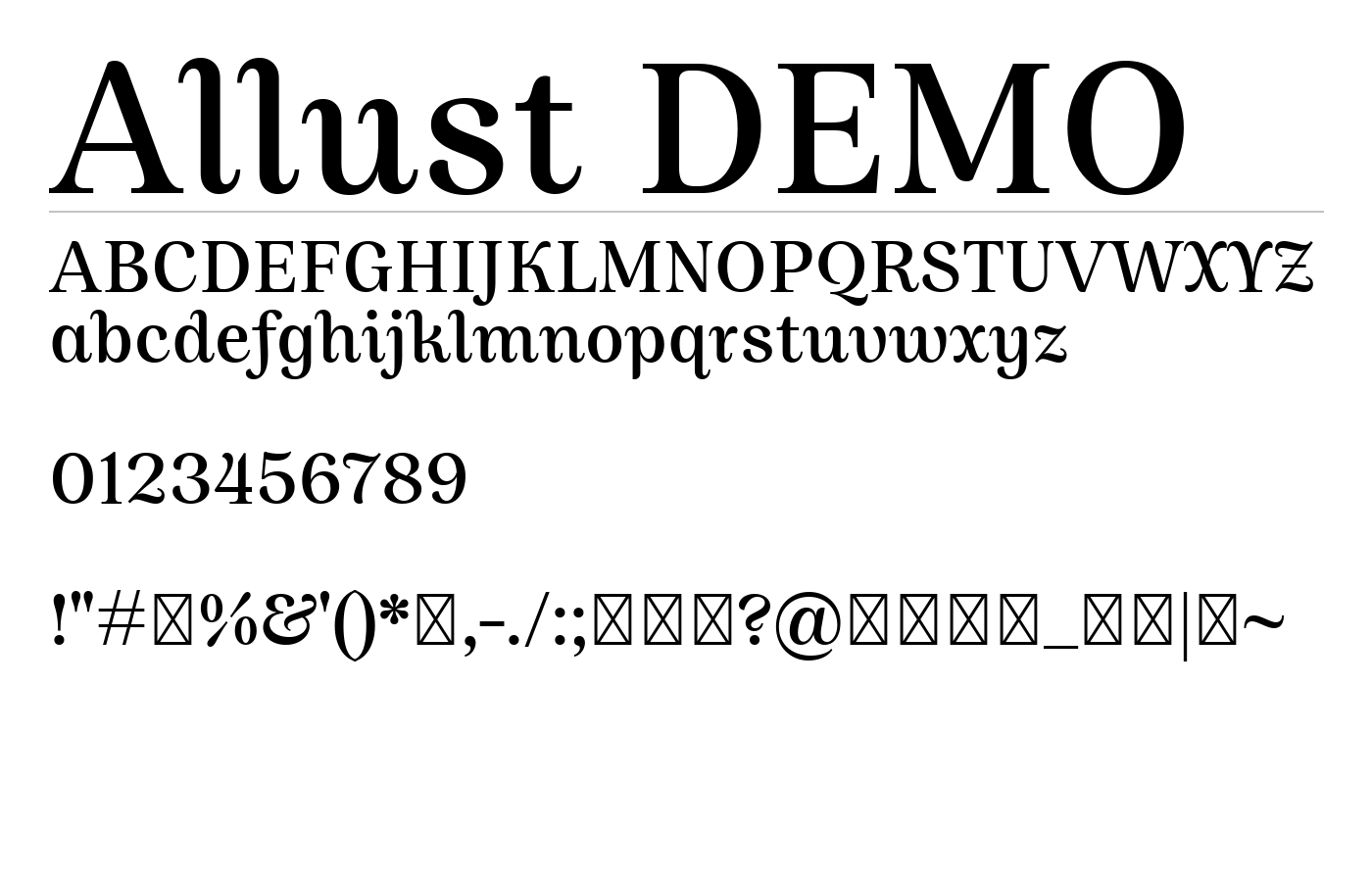
Allust DEMO is a refined serif font with a classic, elegant feel characterized by moderate stroke contrast and delicate bracketed serifs. Its upright, slightly condensed letterforms feature distinctive, playful details like the curled lowercase ‘g’ and stylized tails, lending it a unique charm suited for sophisticated branding, editorial design, and headlines. This font works well where a touch of vintage-inspired refinement is desired without sacrificing readability.
Allust DEMO Font
About Allust DEMO Font
| Font family | Allust DEMO Font |
| Designer | Yusril Muhtadi |